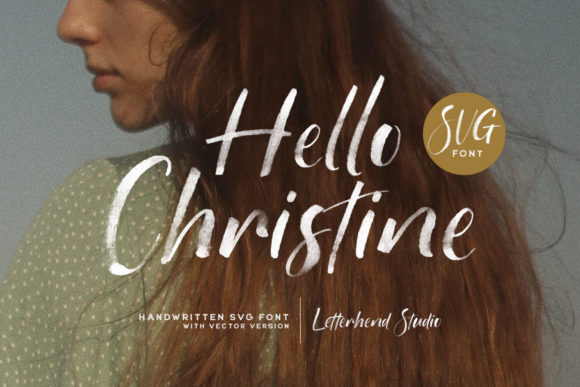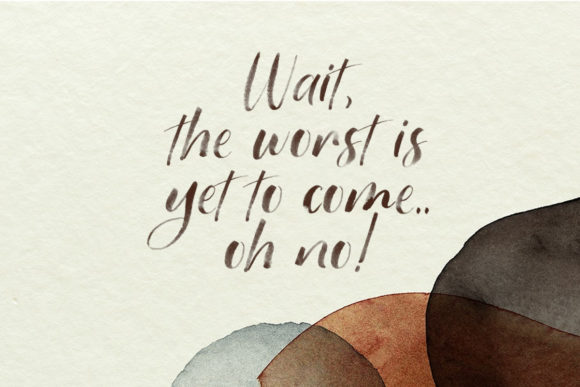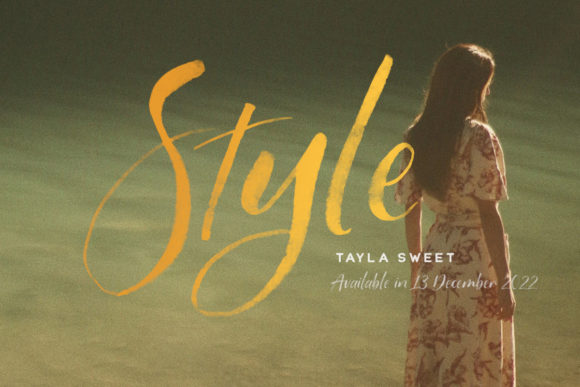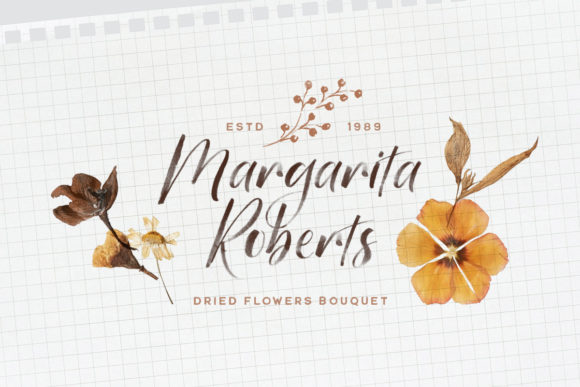
Hello Christine Font: A Delicate Handwritten Font for Wedding Design
About the Hello Christine Font
Crafted with precision, the Hello Christine Font is ready to bring your ideas to life. Hello Christine is a unique and delicate handwritten font, created with the help of a chalk like brush. It looks stunning on wedding invitations, thank you cards, quotes, greeting cards, logos, business cards and every other design which needs a handwritten touch.
Hello Christine’s delicate, handwritten style makes it ideal for projects requiring a touch of personal warmth. It excels in applications such as wedding stationery, branding for artisanal businesses, and short-form content like social media posts or quotes. However, its informal nature makes it less suitable for large blocks of text or user interfaces where legibility is paramount.
For optimal visual harmony, pair Hello Christine with a clean sans-serif like Open Sans for body copy or a classic serif such as Garamond for a more traditional feel. A simple geometric sans-serif, like Montserrat, would also create a contemporary contrast.
The font projects a friendly, romantic, and slightly whimsical personality, best suited to brands emphasizing handcrafted quality, personal connection, or a vintage aesthetic.
Hello Christine Font Usage Examples
Hello Christine Font Example